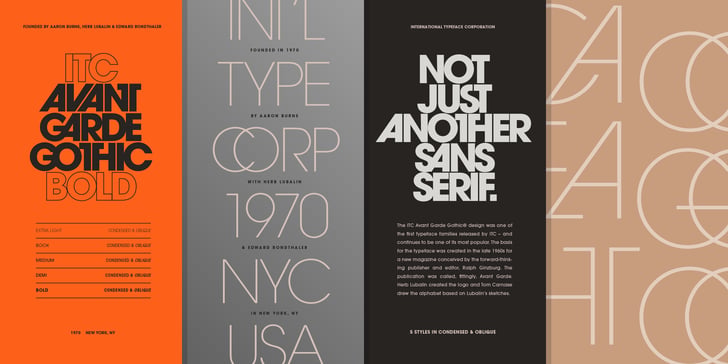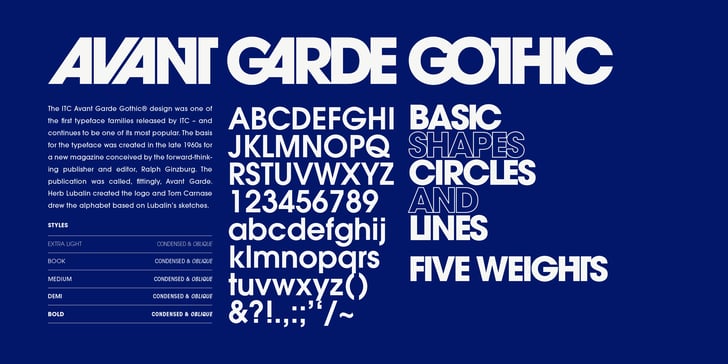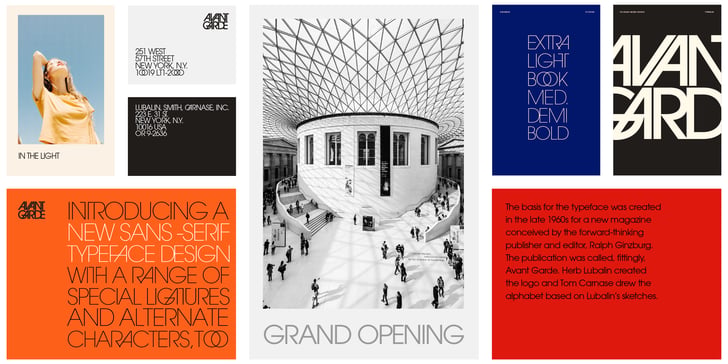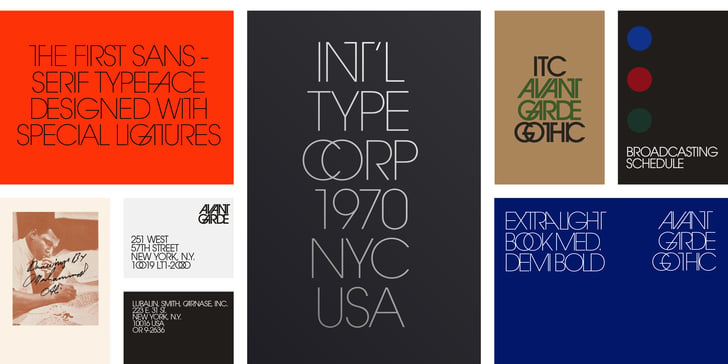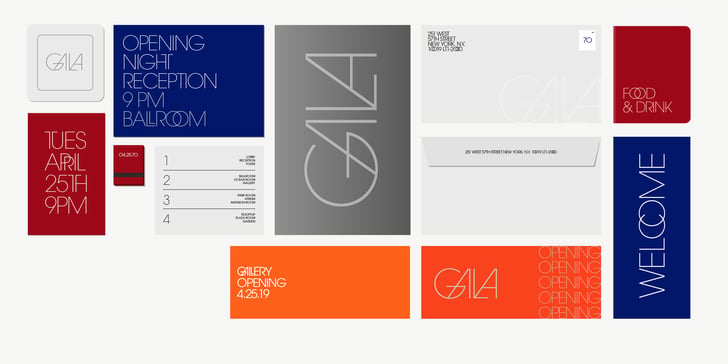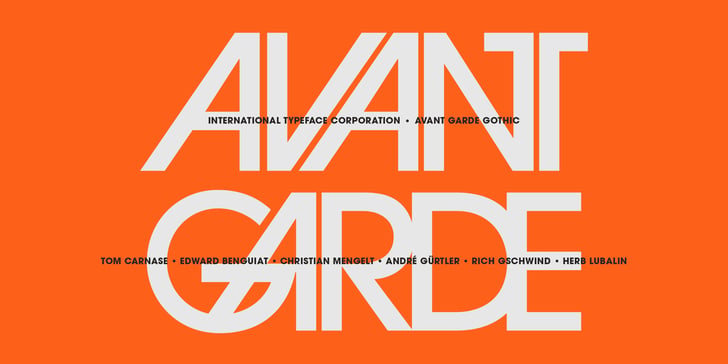
The ITC Avant Garde Gothic® Font Family was designed by Tom Carnase, Erich Gschwind, Christian Mengelt, Edward Benguiat, André Gürtler, Herb Lubalin and published by ITC. ITC Avant Garde Gothic contains 20 styles and 3 family package options. ITC Avant Garde Gothic is a font family based on the logo font used in the Avant Garde magazine. Herb Lubalin devised the logo concept and its companion headline typeface, then he and Tom Carnase, a partner in Lubalin’s design firm, worked together to transform the idea into a full-fledged typeface. The condensed fonts were drawn by Ed Benguiat in 1974, and the obliques were designed by André Gürtler, Erich Gschwind and Christian Mengelt in 1977. The original designs include one version for setting headlines and one for text copy. However, in the initial digitization, only the text design was chosen, and the ligatures and alternate characters were not included. The font family consists of 5 weights (4 for condensed), with complementary obliques for widest width fonts. When ITC released the OpenType version of the font, the original 33 alternate characters and ligatures, plus extra characters were included.
Tom Carnase Erich Gschwind Christian Mengelt Edward Benguiat André Gürtler Herb Lubalin